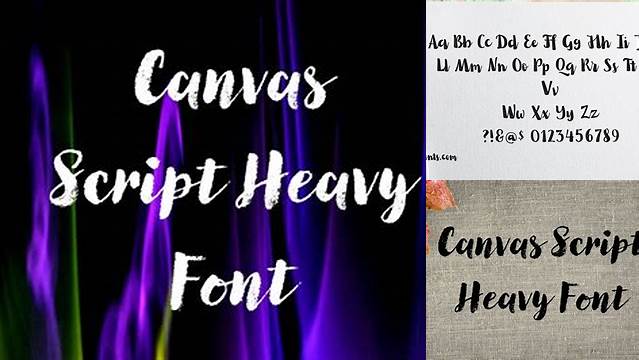
Free Canvas Script Font Downloads: Your Ultimate Guide
Are you on the hunt for that perfect canvas script regular font to add a touch of elegance and personality to your projects? Well, you've landed in the right spot, guys! In this guide, we'll dive deep into the world of canvas script fonts, exploring what makes them so captivating and where you can snag them for free. We'll cover everything from the unique characteristics of this font style to the best places online to find free downloads, ensuring you're equipped with all the knowledge you need to make the best choice for your creative endeavors. Let's get started!
What Makes Canvas Script Fonts So Special?
First off, let's talk about what makes canvas script regular fonts so darn special. These fonts, as the name suggests, mimic the fluid and graceful strokes of handwriting, giving your text a personal and inviting feel. Think about it: the gentle curves, the subtle variations in line thickness, and the overall handcrafted appearance – it's like adding a personal signature to your work. Whether you're designing a wedding invitation, crafting a logo, or sprucing up your website, a canvas script font can instantly inject a dose of warmth and sophistication. The beauty of these fonts lies in their versatility. They can be playful and whimsical, perfect for children's books or birthday cards, or they can be elegant and refined, ideal for branding high-end products or creating sophisticated marketing materials. The key is to choose a canvas script font that complements the overall aesthetic and message you're trying to convey. When you select the right font, it will help you capture your audience’s attention. This kind of font is the embodiment of elegance. The flowing lines and distinctive strokes emulate the graceful artistry of handwriting, imparting a sense of sophistication and charm to any project. It brings a personal touch to your work that a standard font simply can’t match. A well-chosen canvas script font can elevate your design, conveying emotions and messages in a way that resonates with your audience. The unique curves and handcrafted appearance make your text stand out, capturing attention and leaving a lasting impression. Think of the impact a carefully selected script font can have on a wedding invitation, a logo, or a website header. It's the subtle details that make a big difference, and a canvas script font is one of those details. With its ability to mimic the fluidity and grace of natural handwriting, it’s no wonder that canvas script fonts are so widely appreciated and sought after by designers and creatives. So, as you explore your options, consider how this font can enhance your creative work and bring your vision to life.
How to Choose the Right Canvas Script Font
Choosing the right canvas script font can feel like a daunting task, especially with so many gorgeous options out there. But don't fret, guys! We're here to break it down and make the process a whole lot easier. The first thing to consider is the overall tone and style of your project. Are you aiming for something elegant and sophisticated, or more playful and whimsical? A formal invitation, for instance, might call for a classic, flowing script with delicate details, while a children's book might benefit from a more casual, handwritten-style font with a bit of personality. Think about the message you're trying to convey and how the font can help you communicate that message effectively. The weight and thickness of the font are also important factors to consider. A very thin and delicate script might look stunning on its own, but it could become illegible when used in smaller sizes or on a busy background. On the other hand, a very bold and heavy script might overpower your design and make it feel cluttered. Try to find a balance that works well for your specific application. Another key aspect to consider is the readability of the font. While some canvas scripts are beautifully ornate and elaborate, they might not be the most practical choice for body text or long paragraphs. If your text needs to be easily readable at a glance, opt for a simpler, cleaner script with clear letterforms. Save the more decorative scripts for headings, titles, or other design elements where legibility is less critical. Don't forget about the kerning and spacing of the font either. Kerning refers to the space between individual letters, while spacing refers to the overall space between words and lines. A well-kerned and well-spaced font will look much more polished and professional than one that's too cramped or too spread out. Finally, it's always a good idea to test out the font in your design before making a final decision. Try it out in different sizes, colors, and contexts to see how it looks and feels. You might even want to create a mockup of your project to get a better sense of how the font will work in the real world. By taking the time to carefully consider these factors, you'll be well on your way to choosing the perfect canvas script font for your needs.
Tips for Using Canvas Script Fonts Effectively
Now that you've got your canvas script font downloaded and installed, let's talk about how to use it effectively. Because, let's be real, even the most beautiful font can look out of place if it's not used correctly. One of the most important tips is to use canvas script fonts sparingly. They're great for adding flair and personality, but they can quickly become overwhelming if you use them for everything. Think of them as the accent pieces in your design – the little touches that add character and charm. For body text, it's generally best to stick to simpler, more legible fonts like sans-serif or serif typefaces. Save the canvas script fonts for headings, titles, logos, or other design elements where you want to make a statement. Another key tip is to pair your canvas script font with a complementary font. A good rule of thumb is to pair a script font with a clean, sans-serif font for a balanced and modern look. For example, you might use a flowing canvas script for your heading and then use a simple sans-serif font like Open Sans or Montserrat for your body text. This creates a nice contrast and ensures that your text is easy to read. Consider the size and spacing of your canvas script font as well. Script fonts often look best when they're used at a larger size, as this allows their intricate details to shine. However, you also need to make sure that the letters aren't too crowded together. Adjust the kerning (the space between individual letters) and the tracking (the overall space between letters) to create a balanced and visually appealing look. Don't be afraid to experiment with different colors and effects to enhance your canvas script font. A subtle drop shadow or a gradient fill can add depth and dimension, while using a contrasting color can make your script font really pop. However, be careful not to overdo it – too many effects can make your font look cluttered and difficult to read. Finally, always consider the context in which you're using your canvas script font. Is it for a formal invitation, a website header, or a social media post? The style and tone of your font should match the overall aesthetic of your project. A delicate, flowing script might be perfect for a wedding invitation, but it might not be the best choice for a tech startup's logo. By following these tips, you can ensure that your canvas script font is used effectively and enhances your designs in the best possible way.
Conclusion: Elevate Your Designs with Canvas Script Fonts
So there you have it, guys! A comprehensive guide to canvas script regular fonts and how to get your hands on them for free. We've explored what makes these fonts so special, where to find them, how to choose the right one, and how to use them effectively. Canvas script fonts are a fantastic way to add a touch of elegance, personality, and warmth to your designs. Whether you're crafting invitations, designing logos, or sprucing up your website, a well-chosen canvas script font can make all the difference. Remember to always download your fonts from reputable sources, pay attention to licensing terms, and experiment with different options to find the perfect match for your project. And most importantly, have fun with it! Designing with fonts is a creative process, so don't be afraid to try new things and push the boundaries. With a little bit of practice and a keen eye for detail, you'll be able to master the art of using canvas script fonts to create stunning and memorable designs. So go ahead, download some free fonts, and start experimenting. The possibilities are endless, and we can't wait to see what you create. Happy designing!